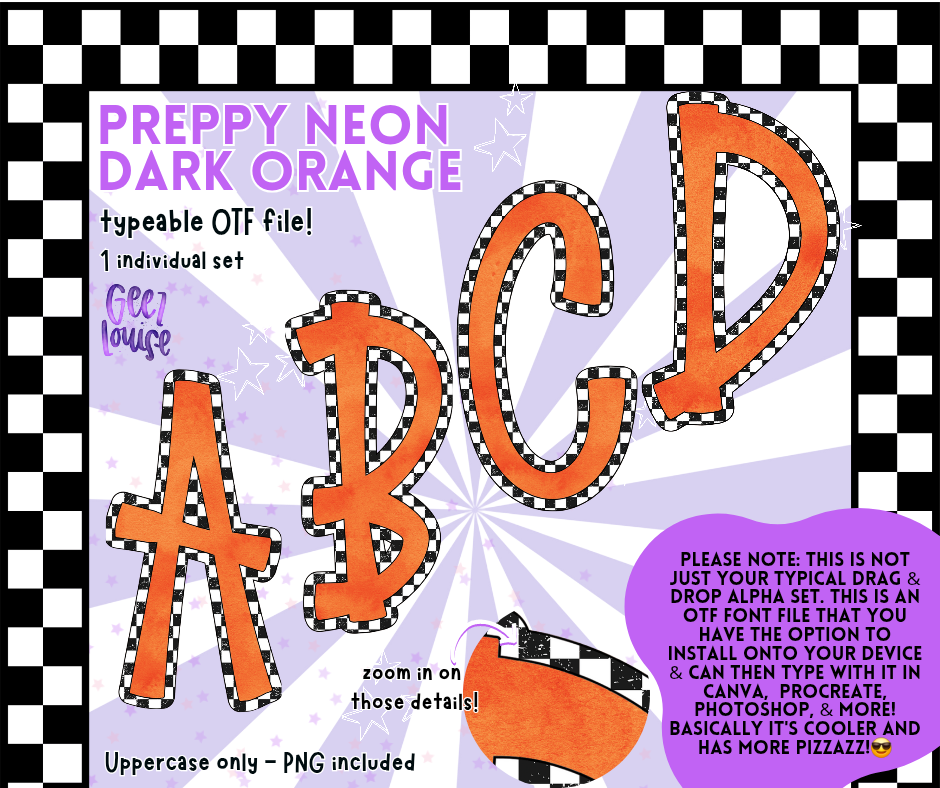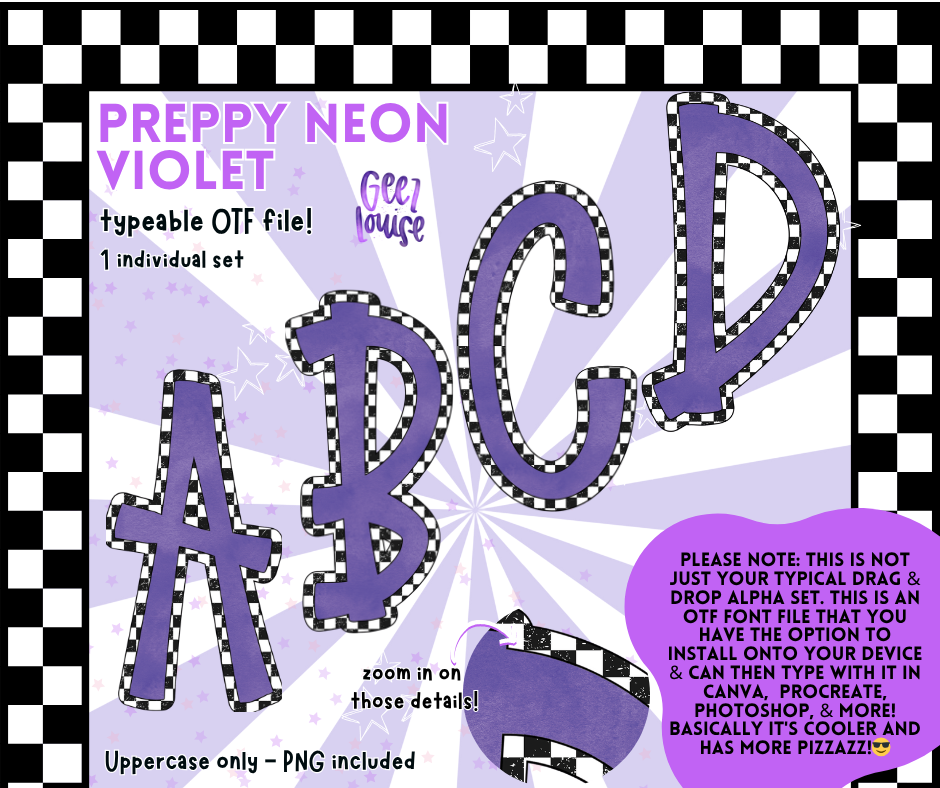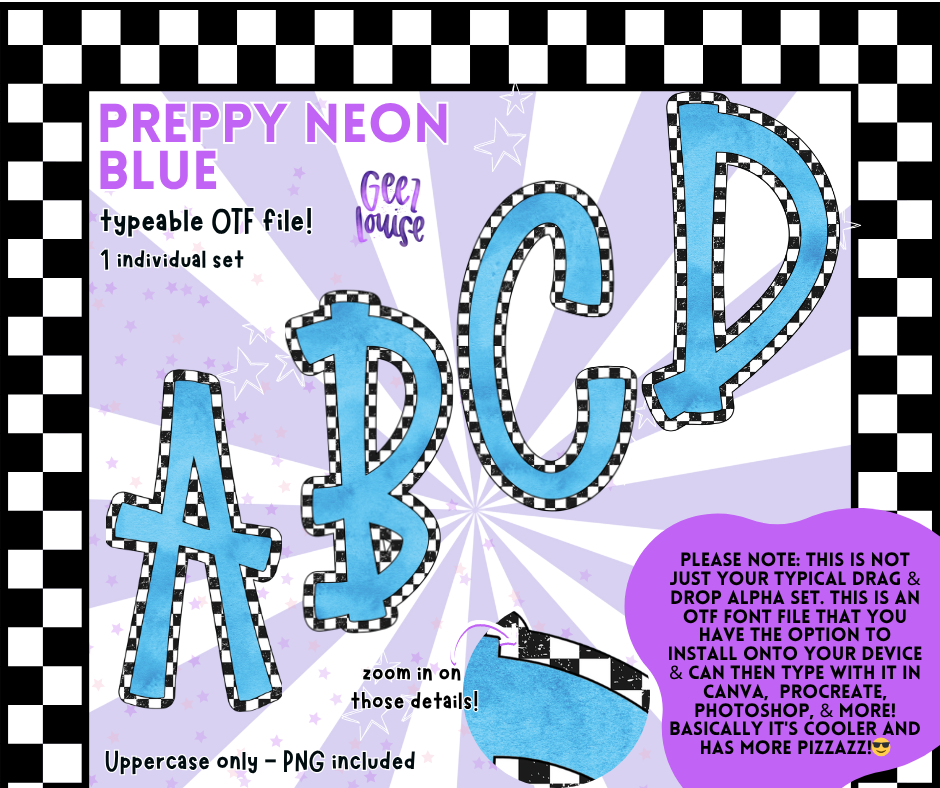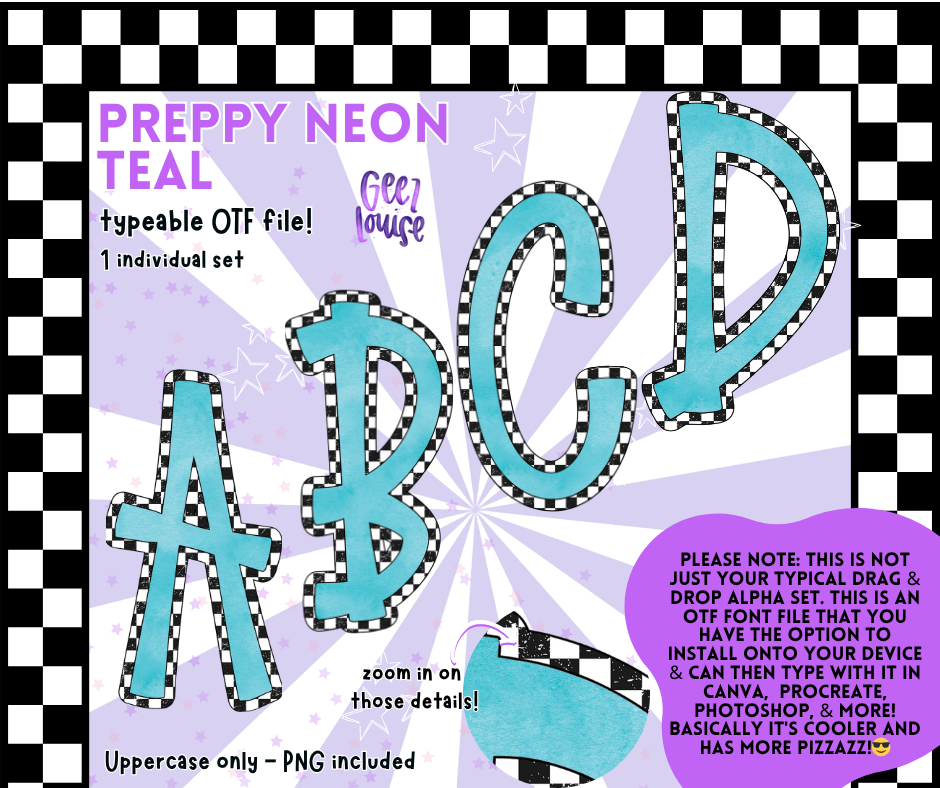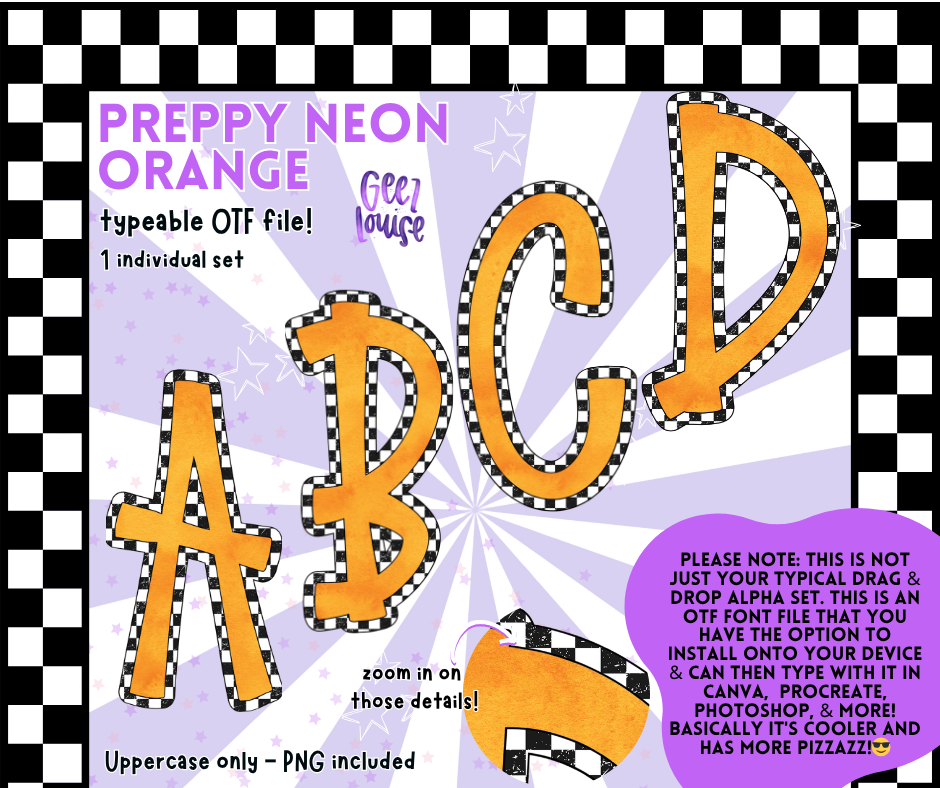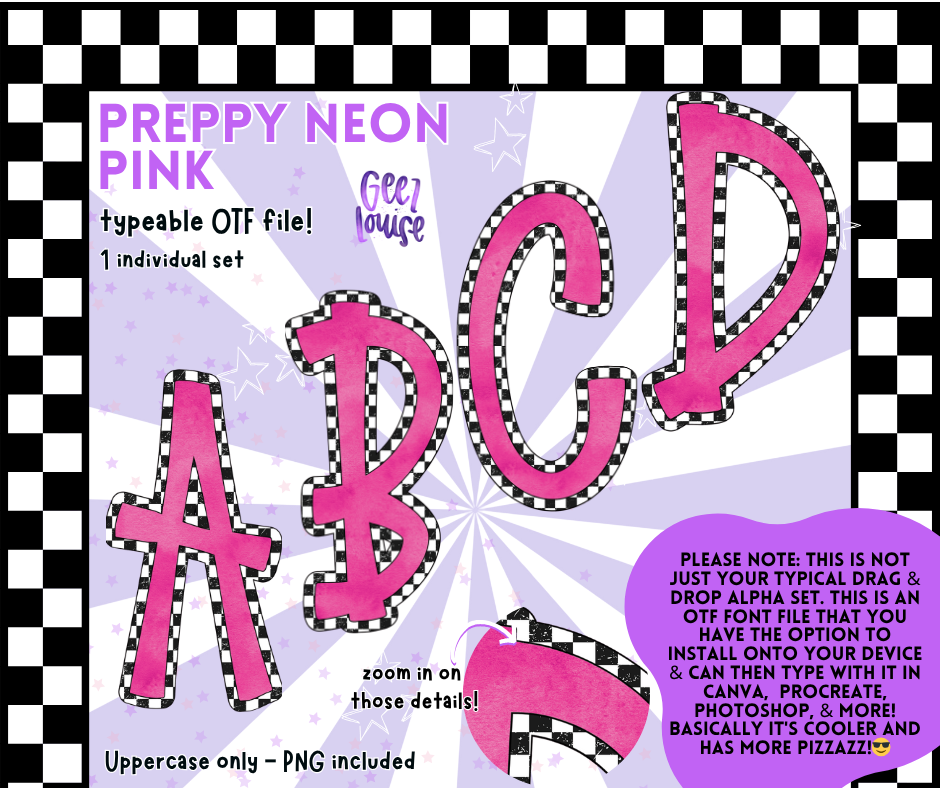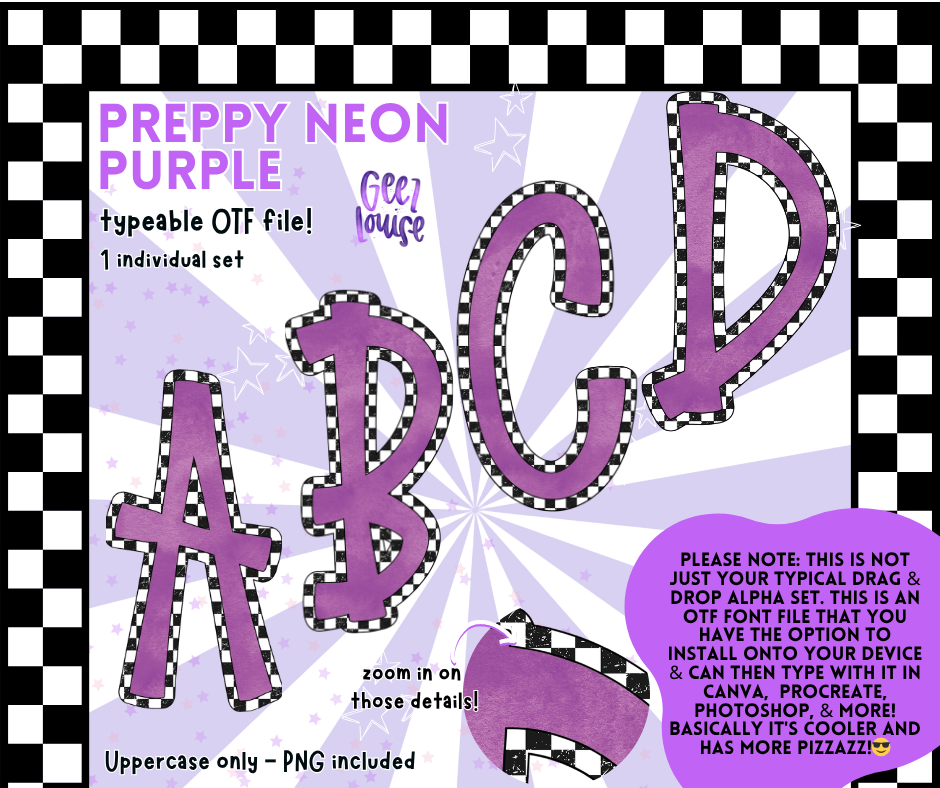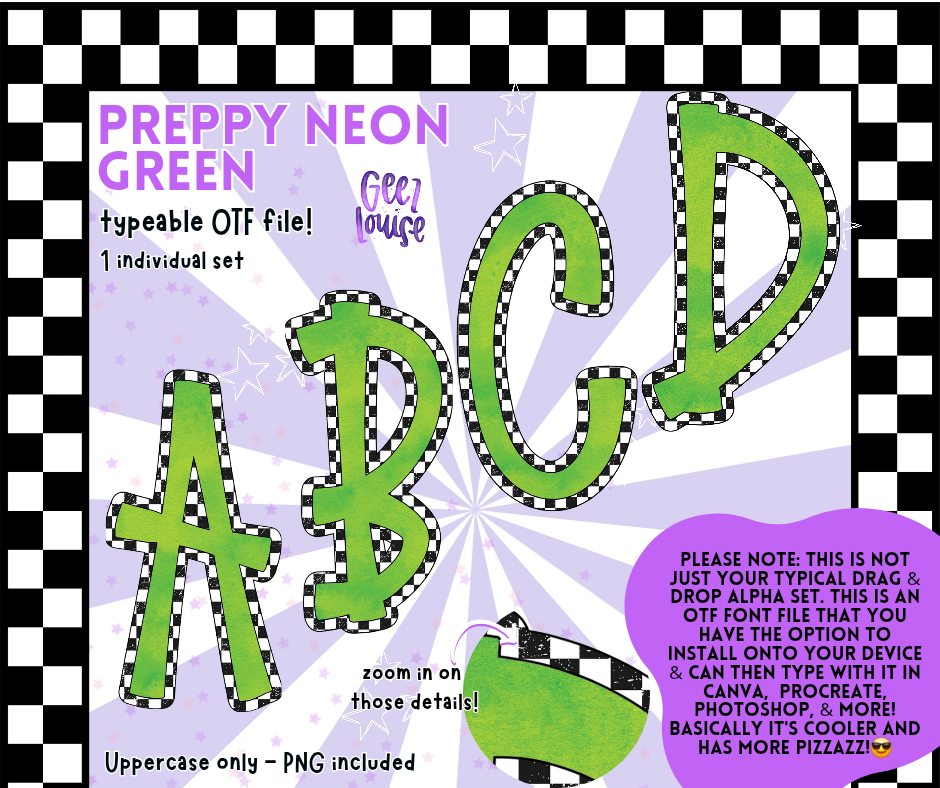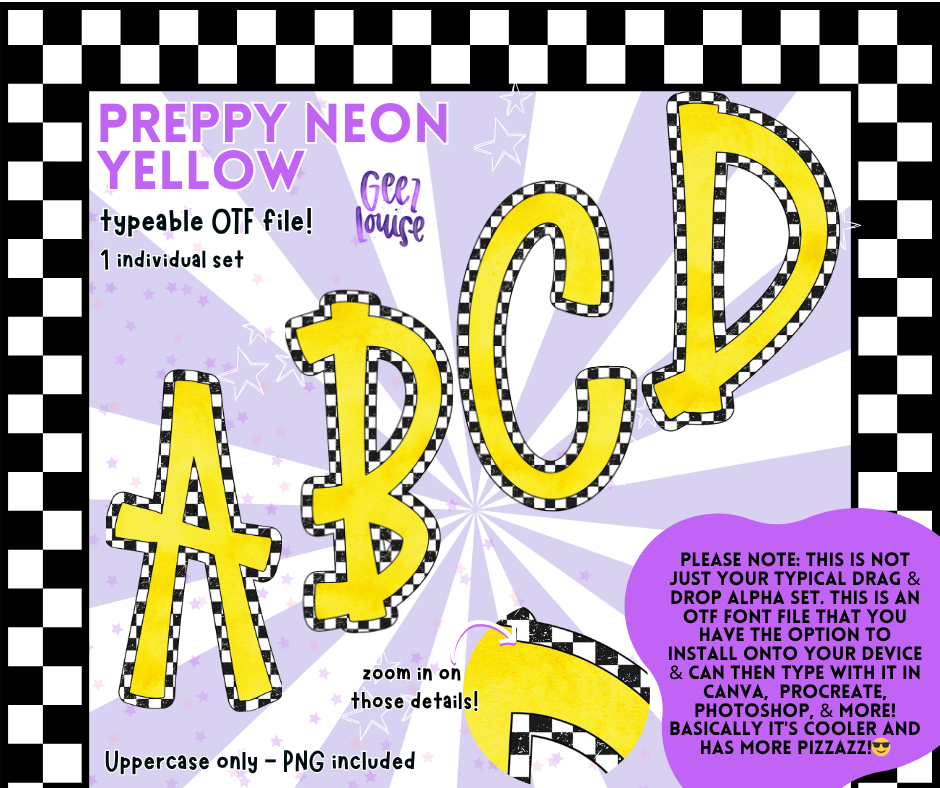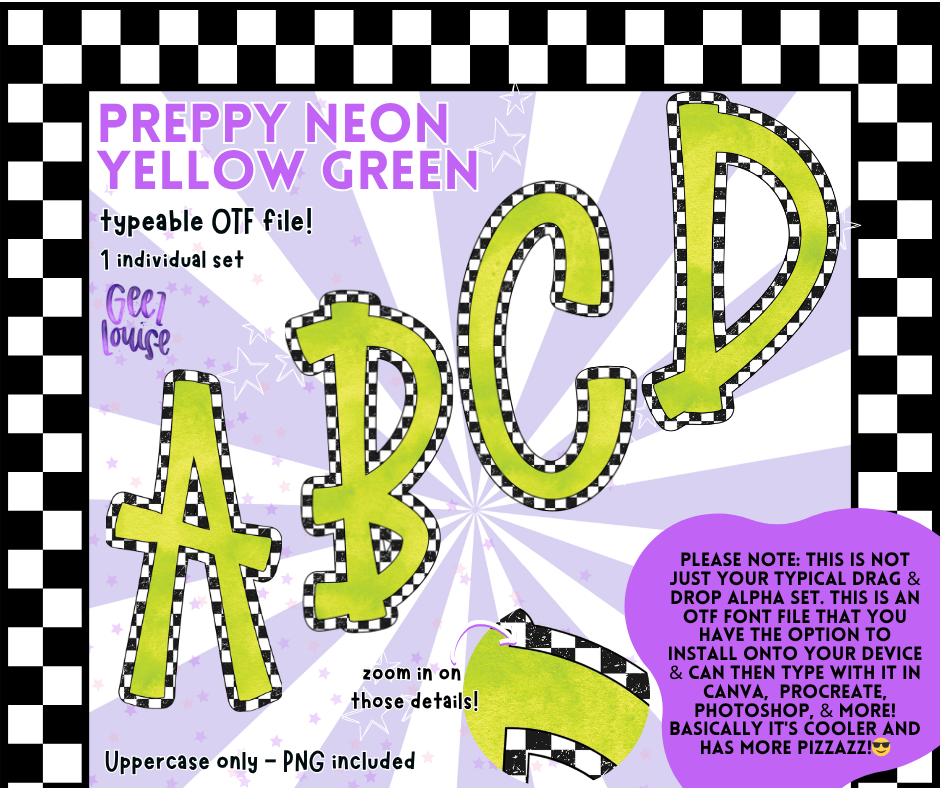
Preppy Neon Typeable OTF Alpha Font | Uppercase Letters with PNGs Included
🎉 Bring your words to life in bold, preppy style!
High-resolution designs with bold details and checkerboard border
Eye-catching – Bold, fun, and loaded with personality